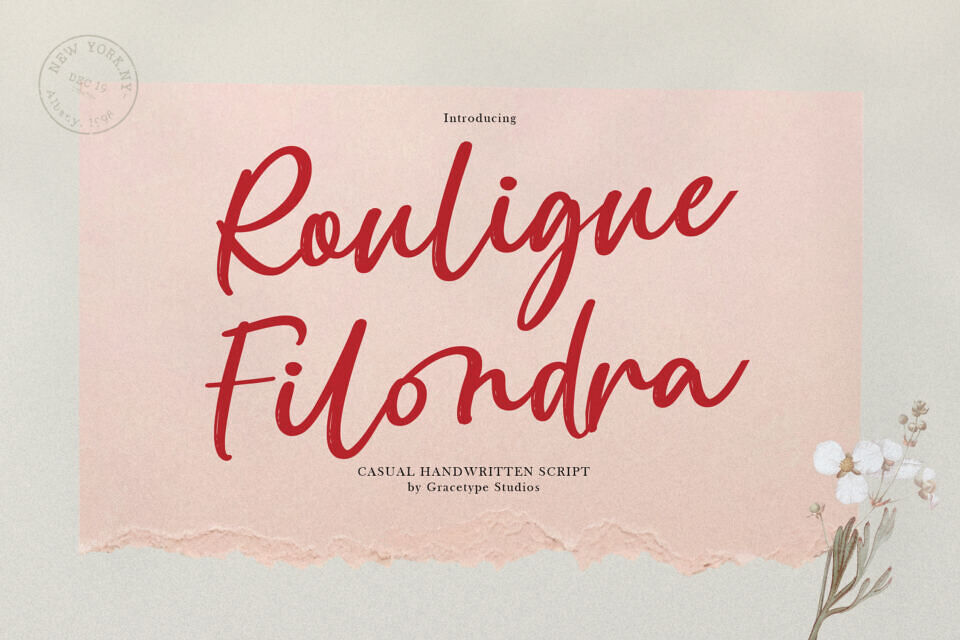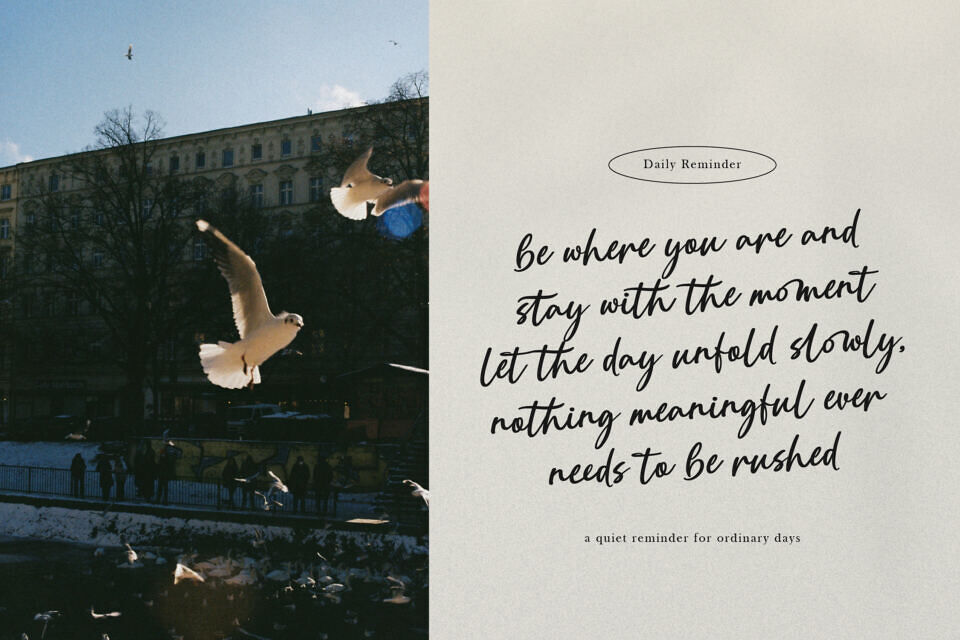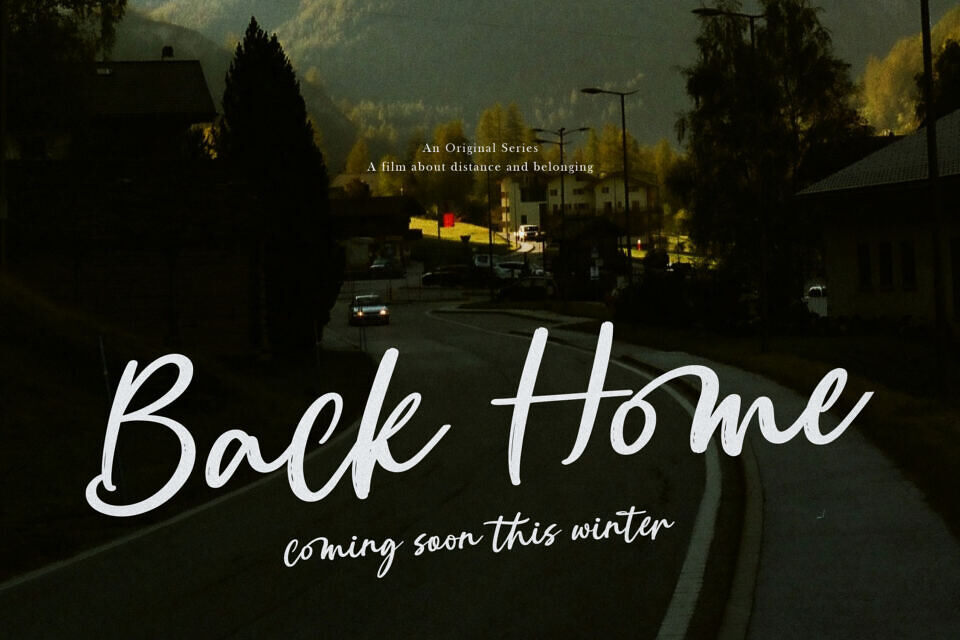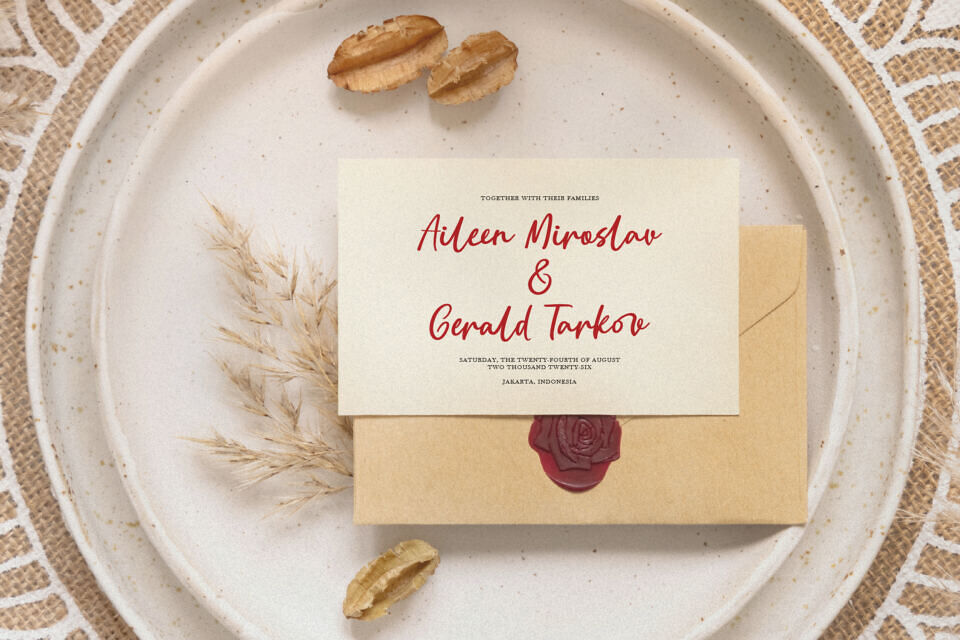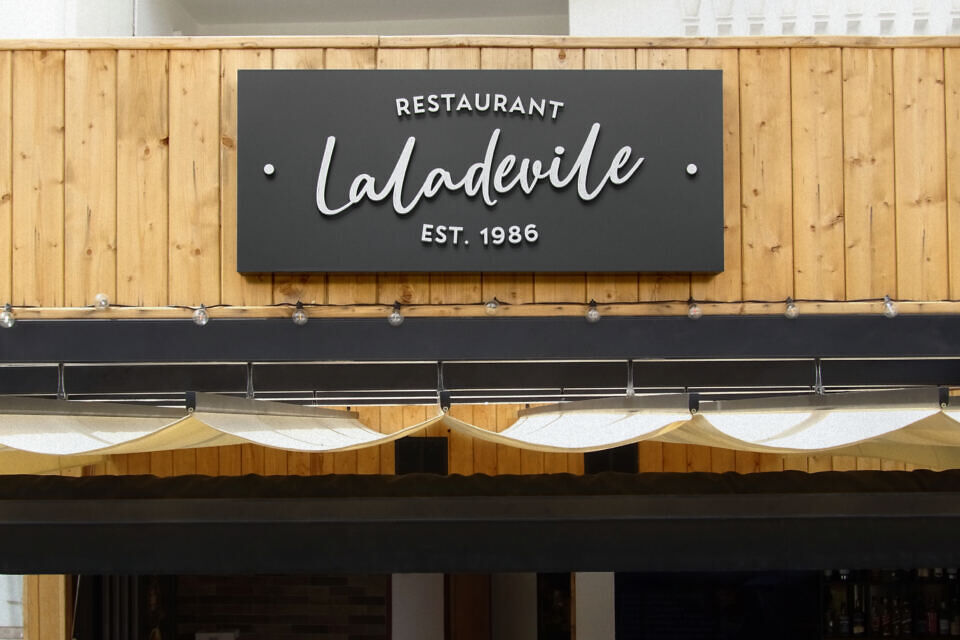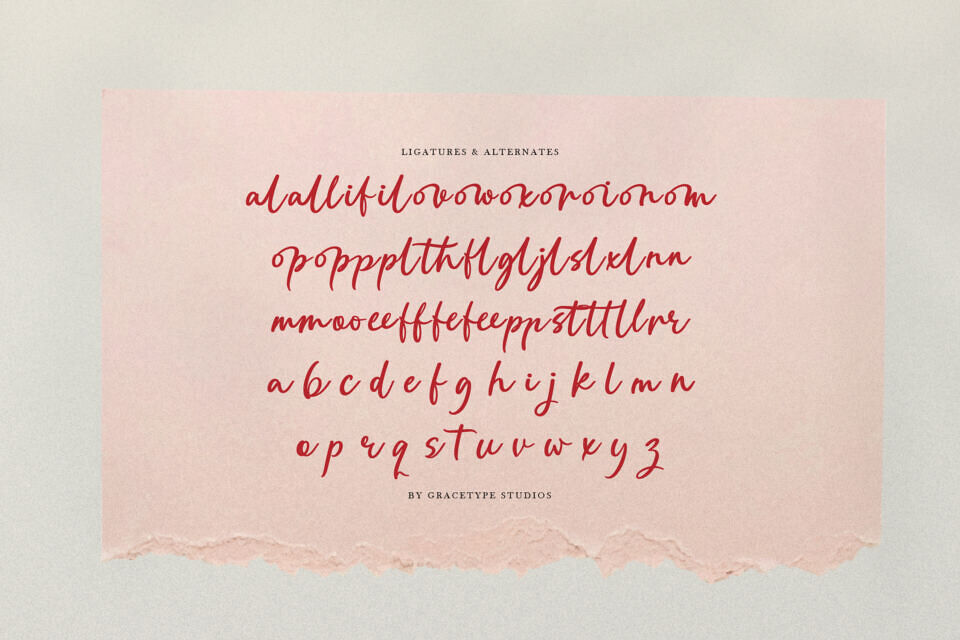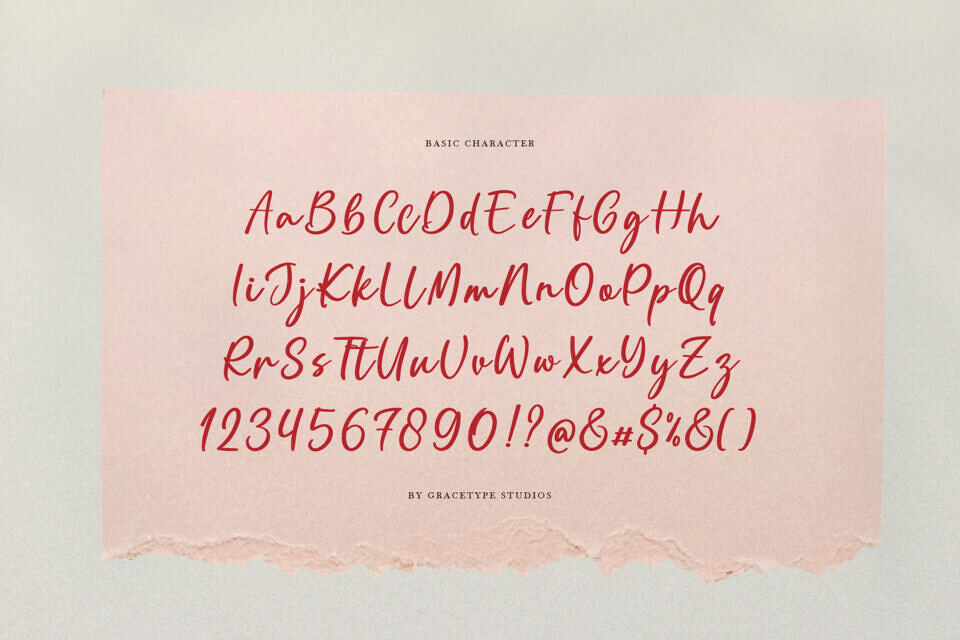
Rouligue Filondra typeface flows with a natural grace, featuring textured edges that give it an authentic pen-on-paper appearance. Perfect for intimate wedding stationery, high-end invitations, and personalized branding, the Rouligue Filondra font adds a bespoke, handcrafted quality to every word.
Pair this Rouligue Filondra typeface with serif fonts for a classic look, or use it alone to create a stunning, romantic focal point. Its casual yet refined demeanor makes it ideal for everything from luxury wine labels to heartfelt social media messages, ensuring your designs always feel unique and intentionally crafted.